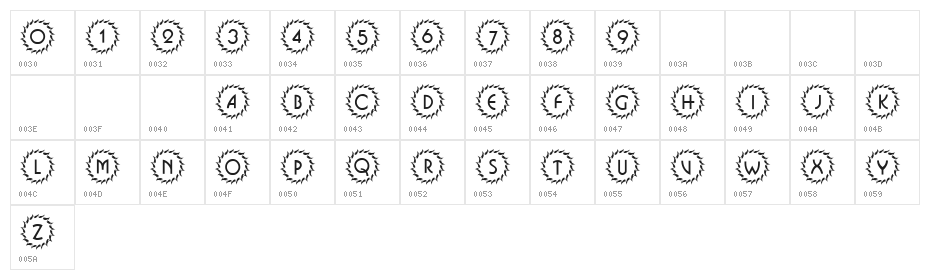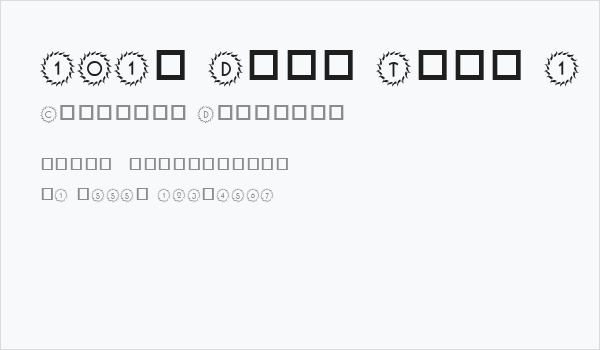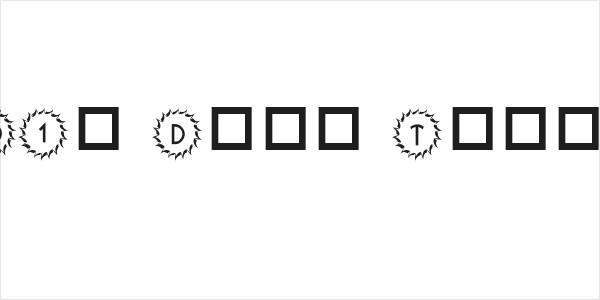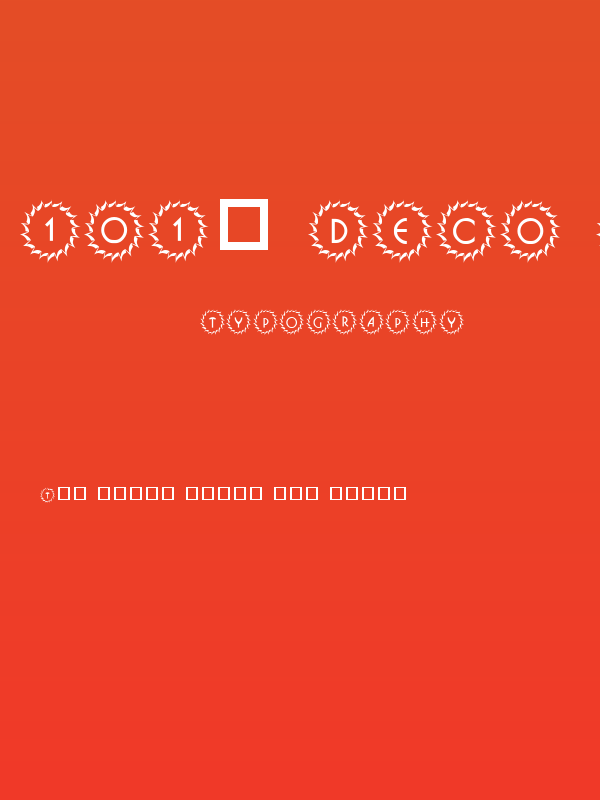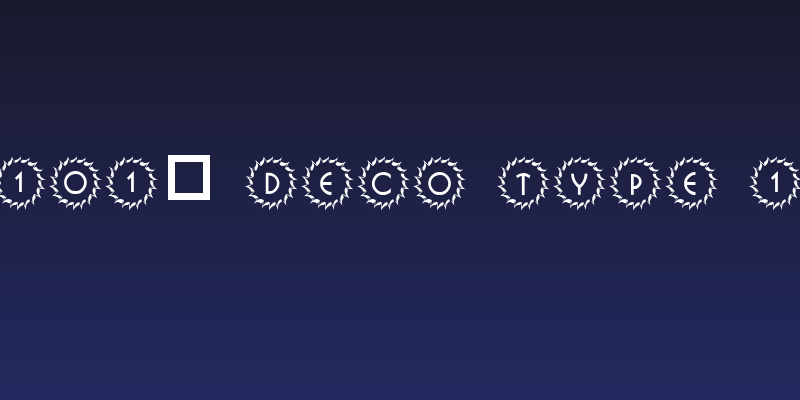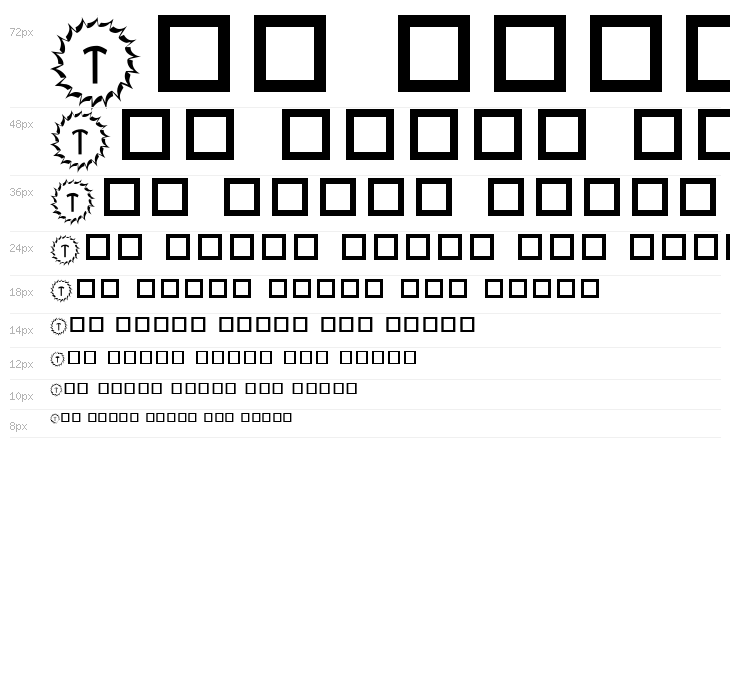
101! Deco Type 1 Font
101! Deco Type 1 Description
This font features uppercase letters and numbers encased in circular shapes with a spiky, decorative border. The design is bold and eye-catching, making it suitable for projects that require a strong visual impact. The characters are evenly spaced within their circular frames, providing a consistent and uniform appearance. The font's unique style is reminiscent of a playful, yet edgy aesthetic, making it ideal for creative and unconventional design projects.
| Proposed Projects | Ideal for posters, logos, album covers, and any design requiring a bold, decorative touch. |